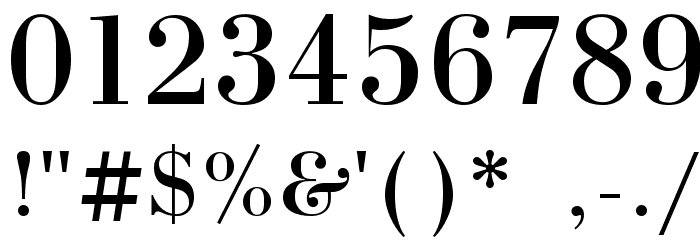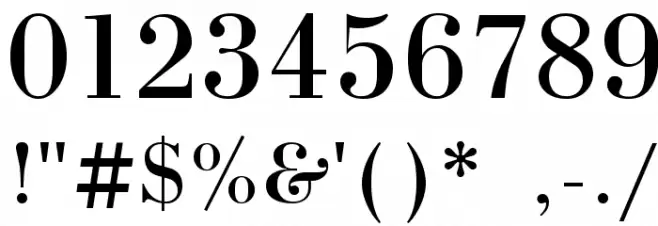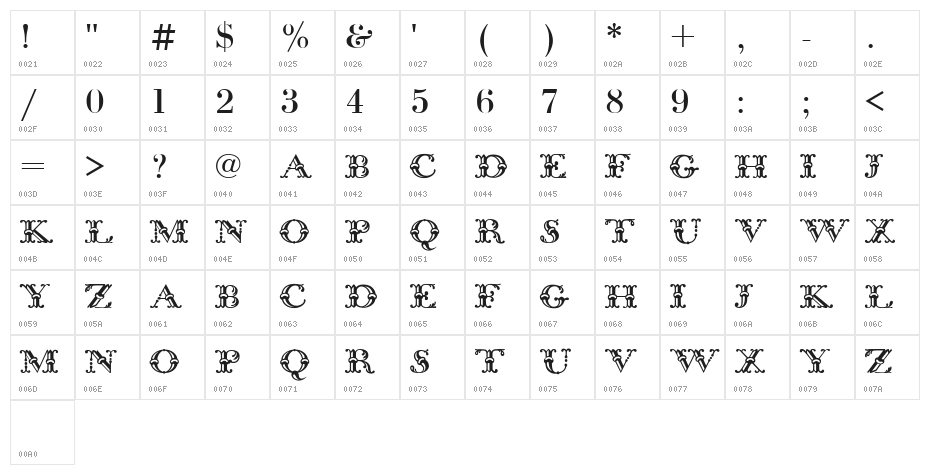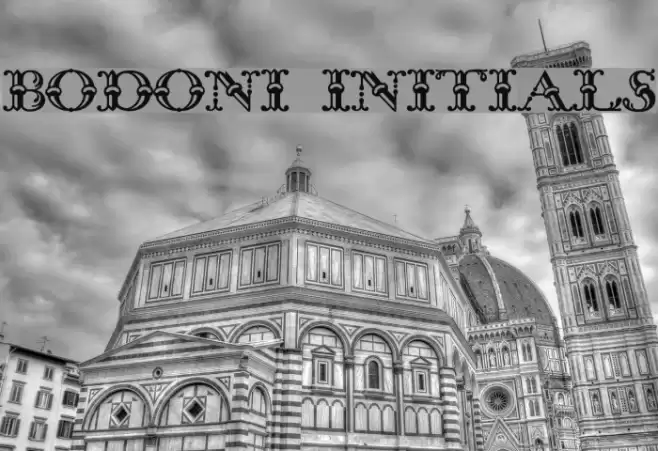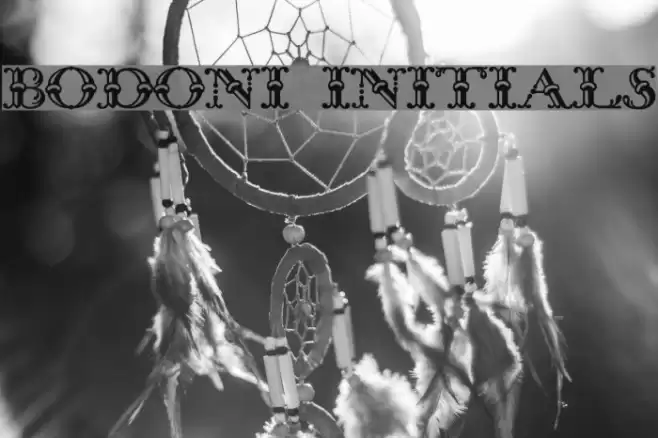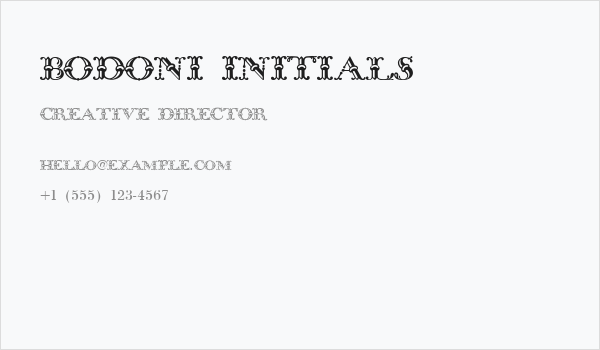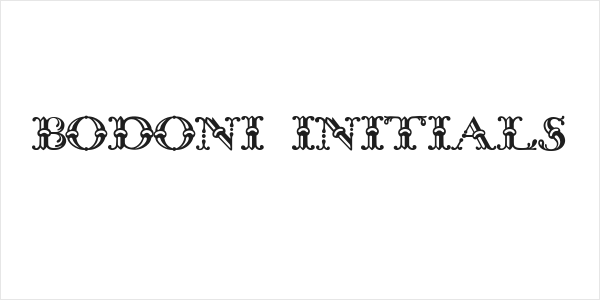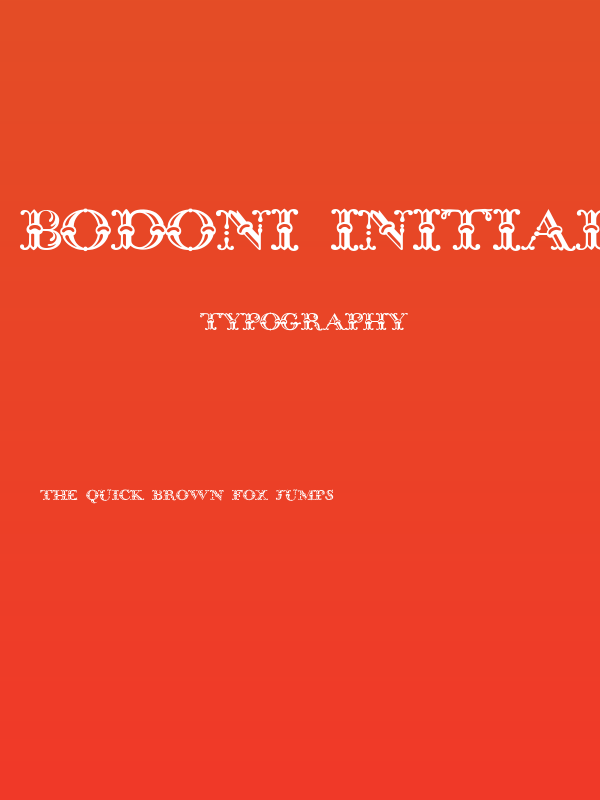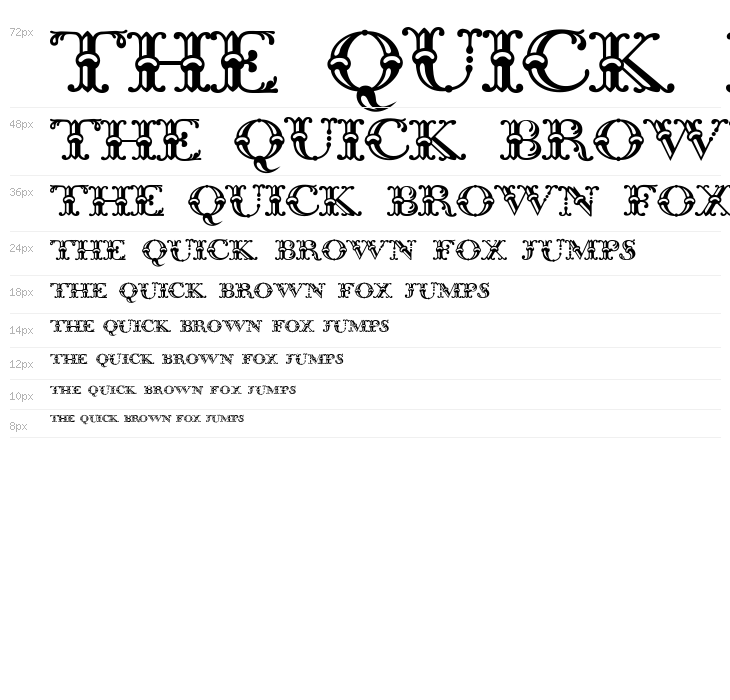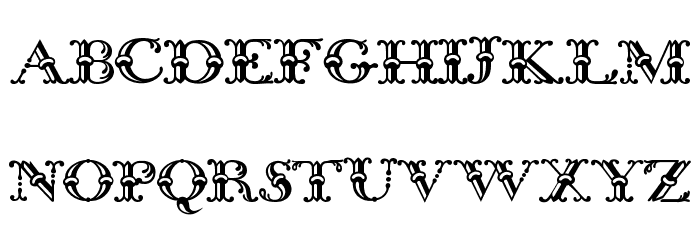
Bodoni Initials Font
Bodoni Initials Description
This font features an ornate and decorative style, characterized by intricate embellishments on each letter. The uppercase letters are particularly elaborate, with flourishes that give them a regal and sophisticated appearance. The numerals are bold and maintain a classic serif structure, providing a strong contrast to the decorative letters. The special characters are consistent with the overall theme, offering a cohesive look. This font is ideal for projects that require a touch of elegance and historical flair, making it suitable for invitations, certificates, and branding that aims to convey luxury and tradition.
| Proposed Projects | Ideal for invitations, certificates, luxury branding, and projects requiring an elegant, historical touch. |